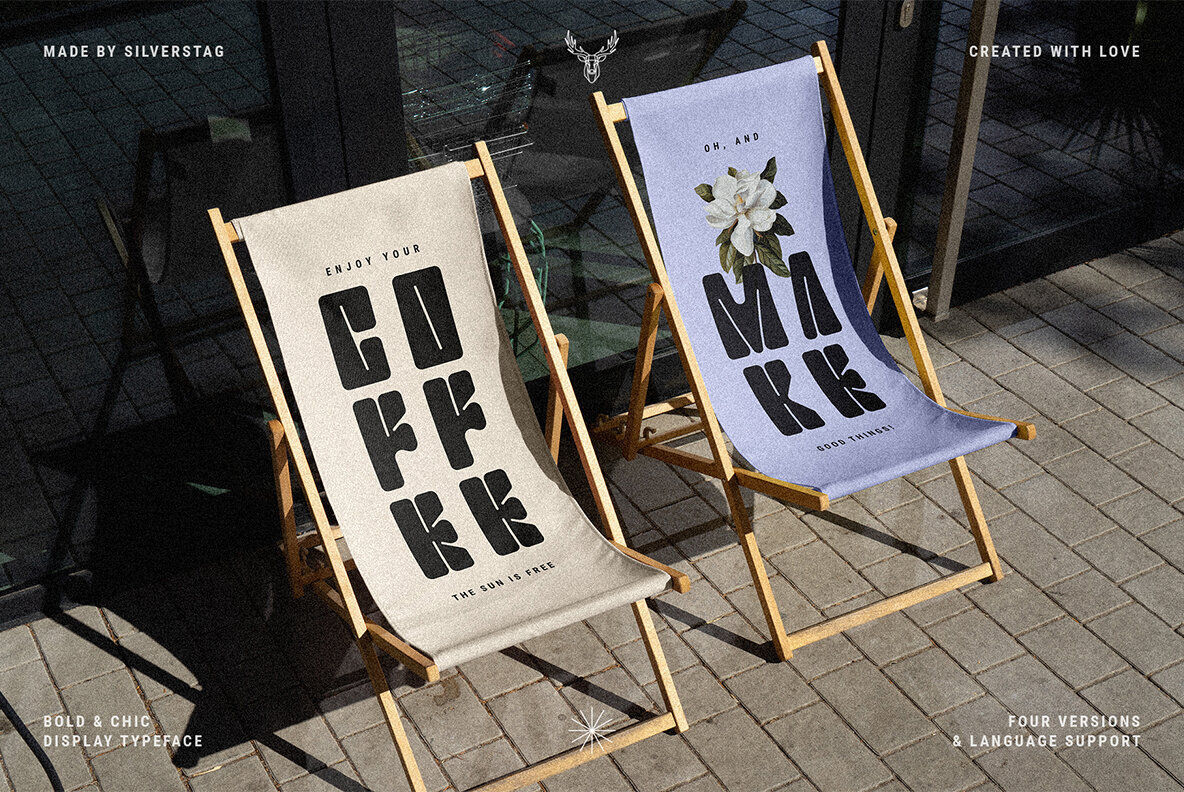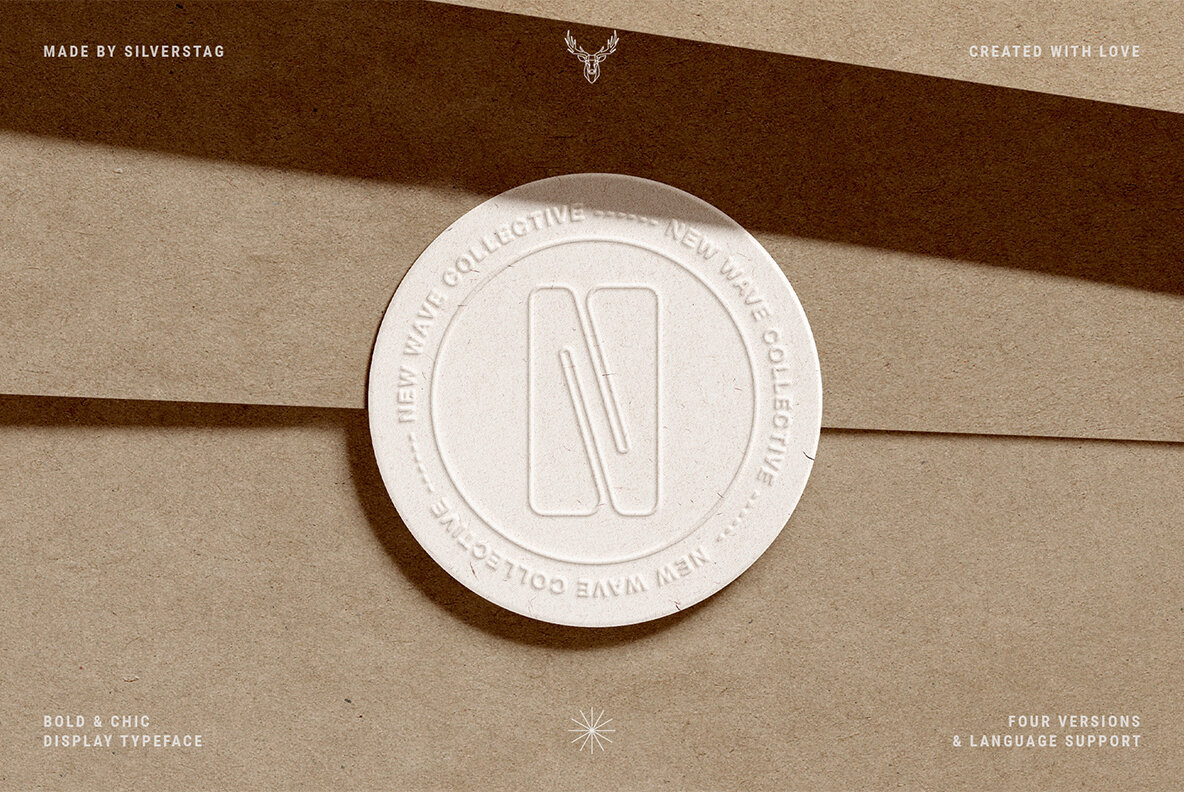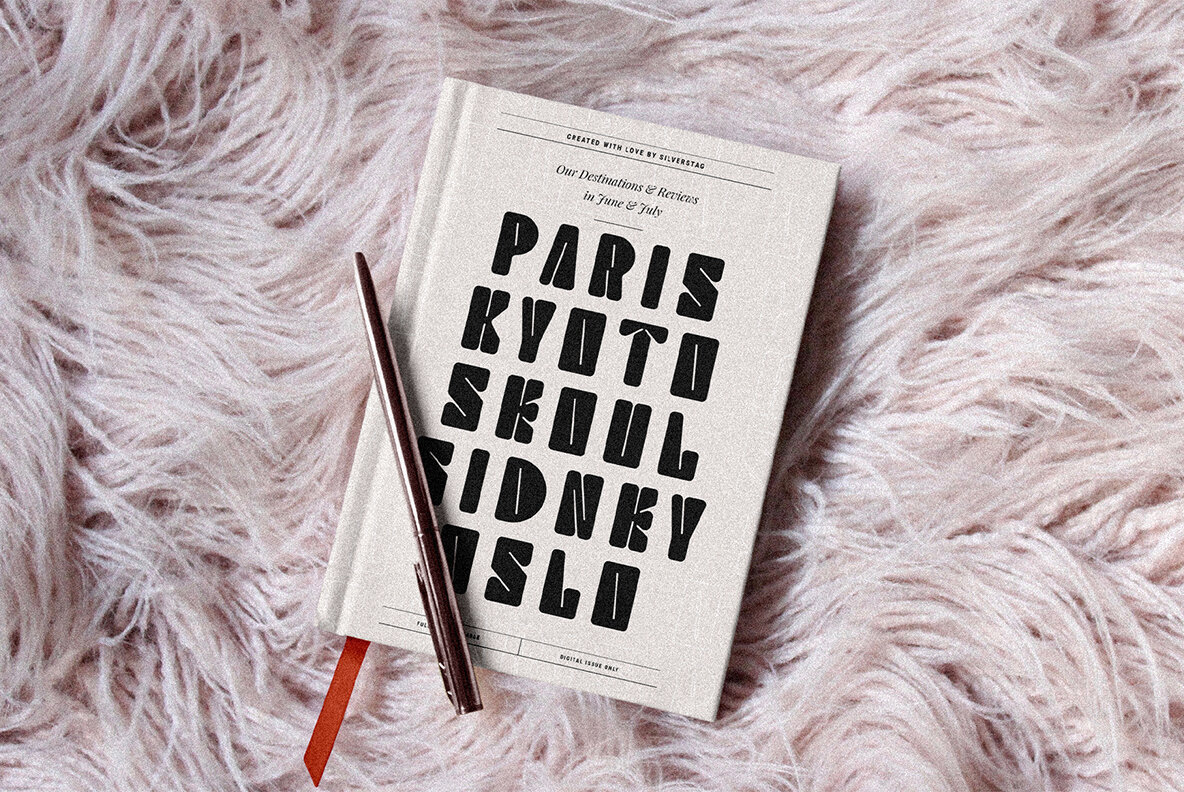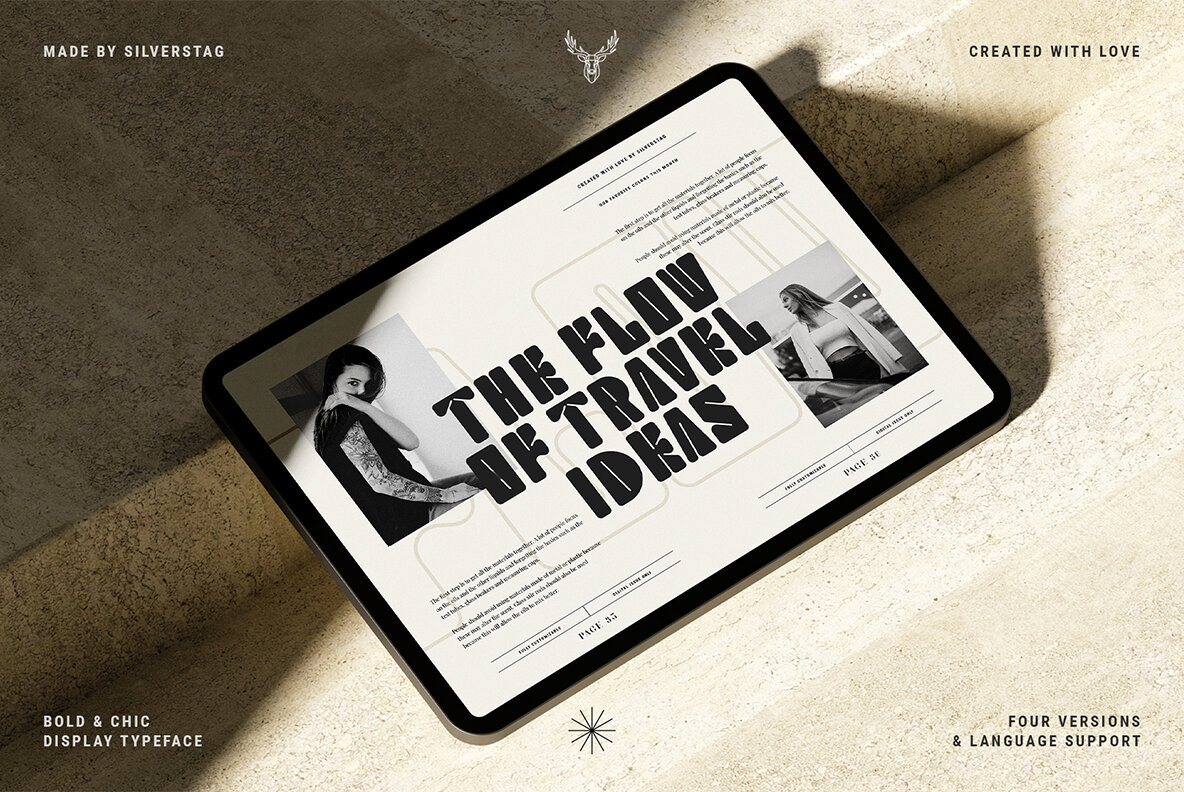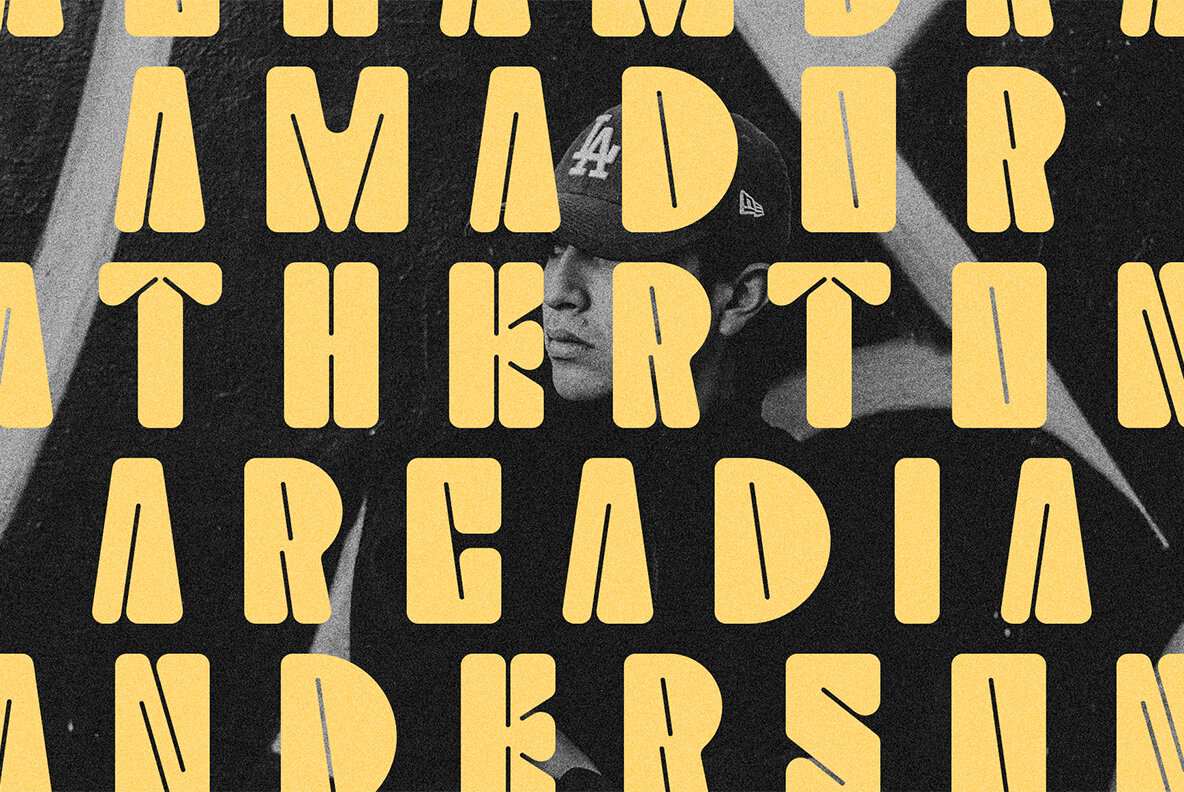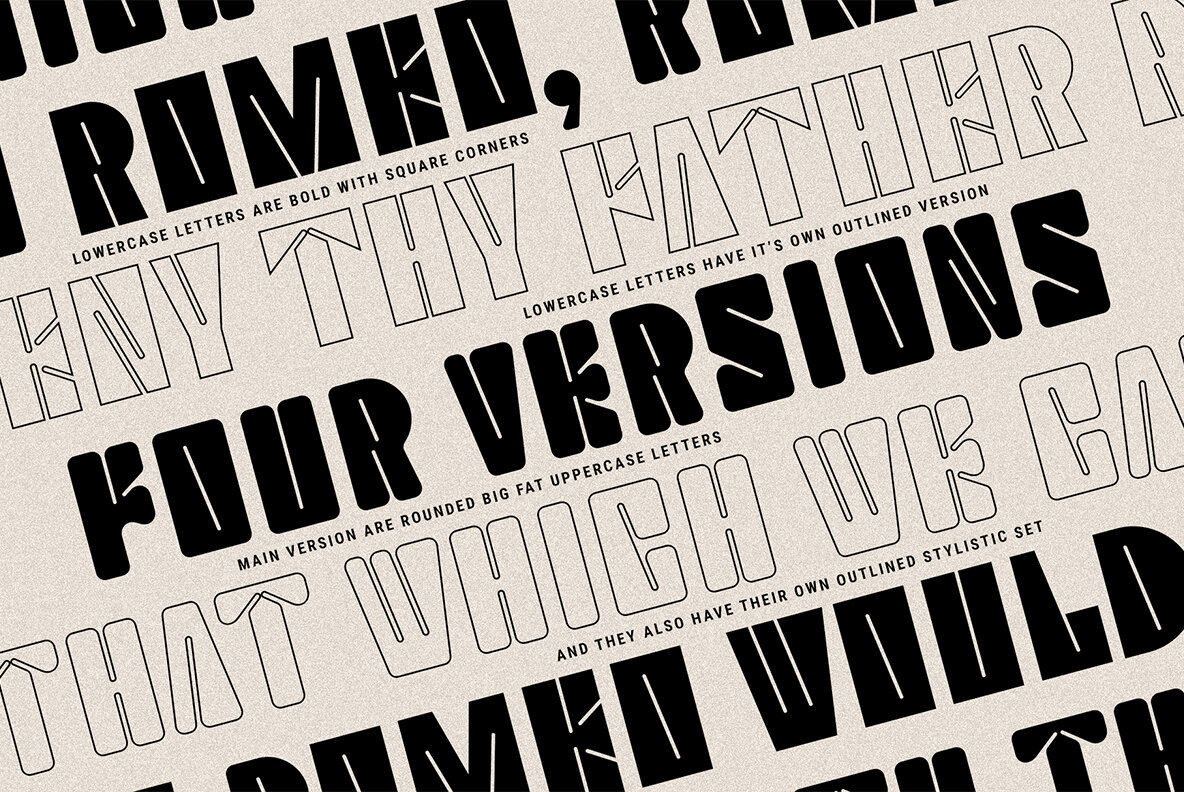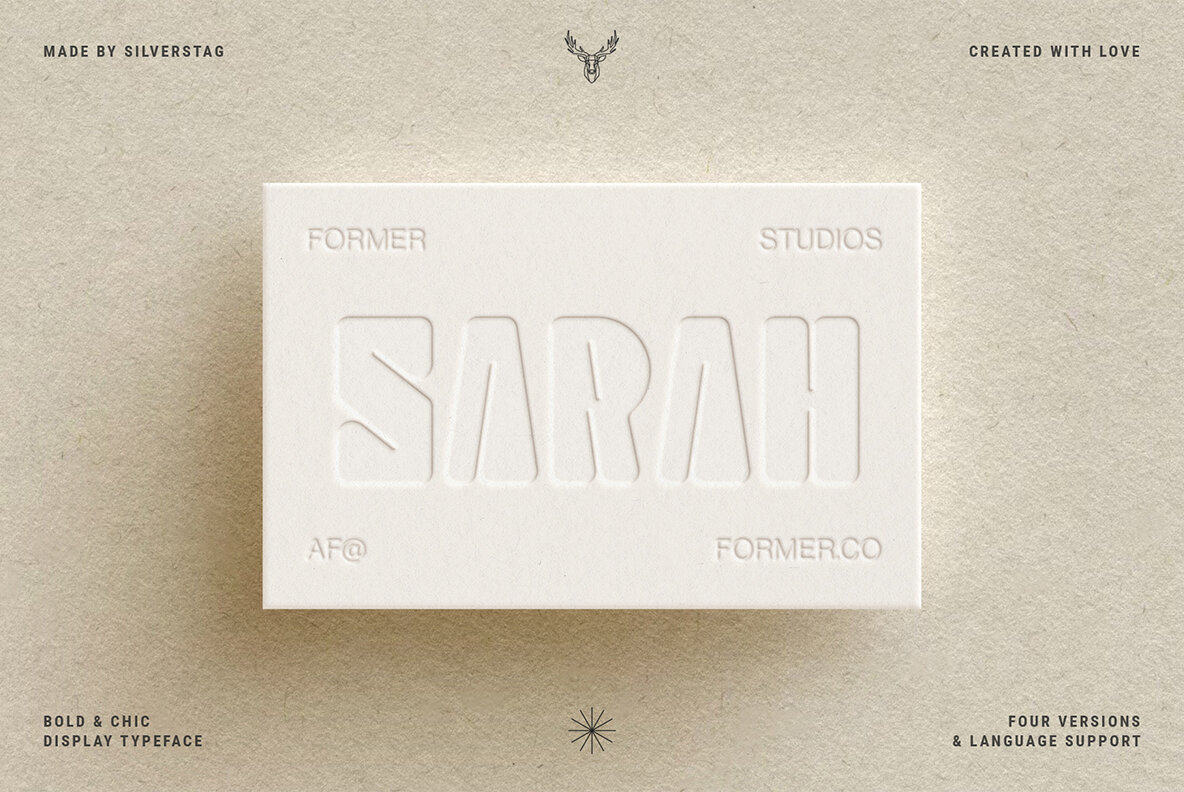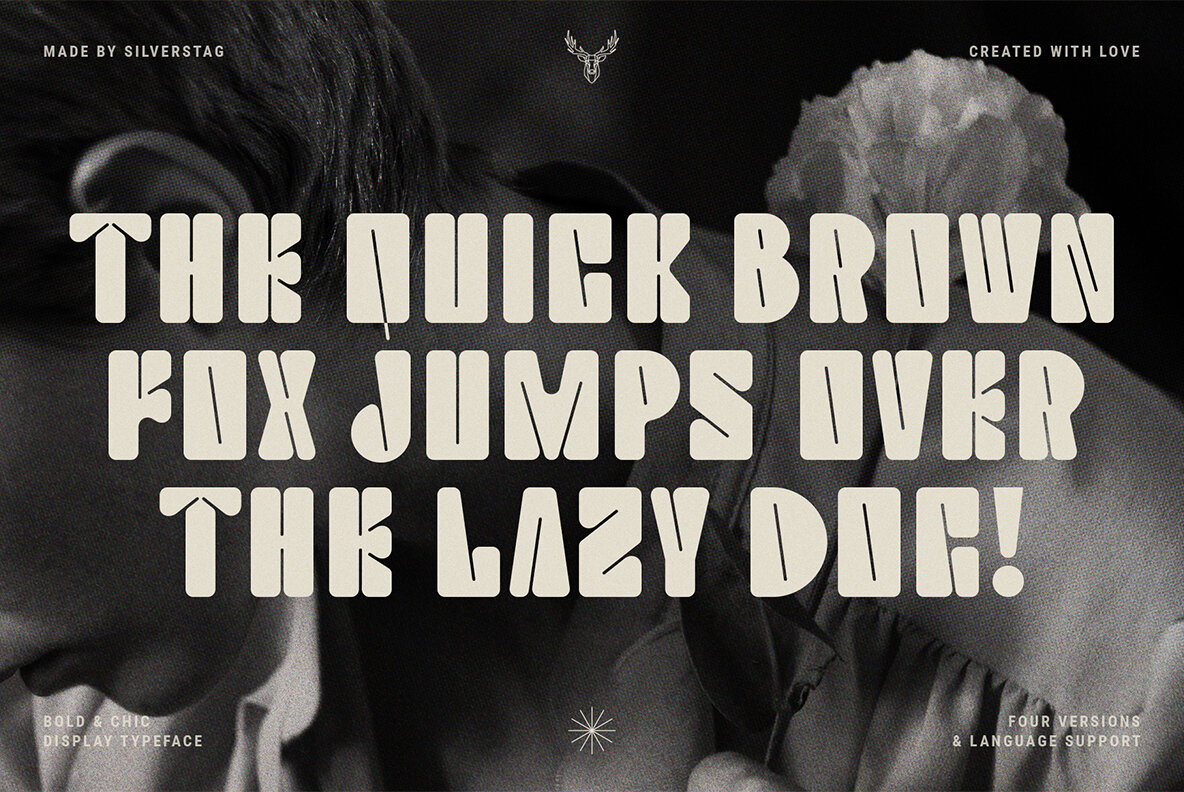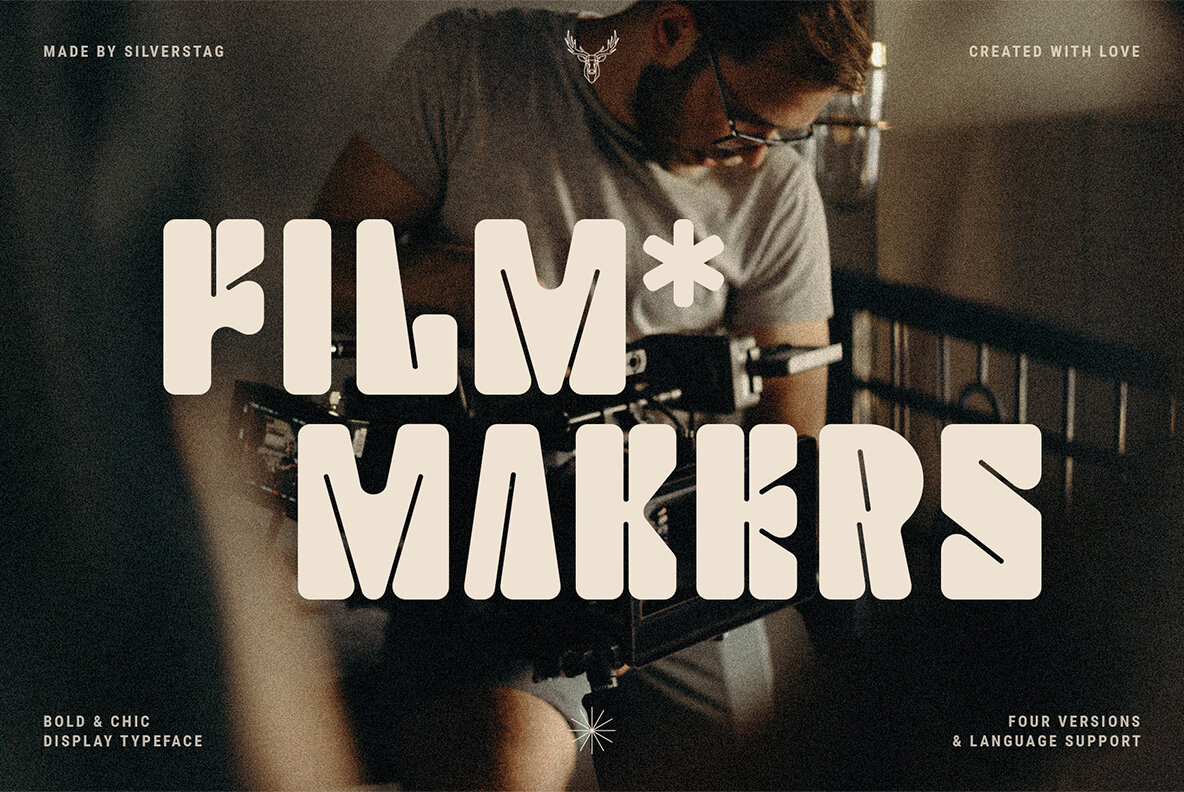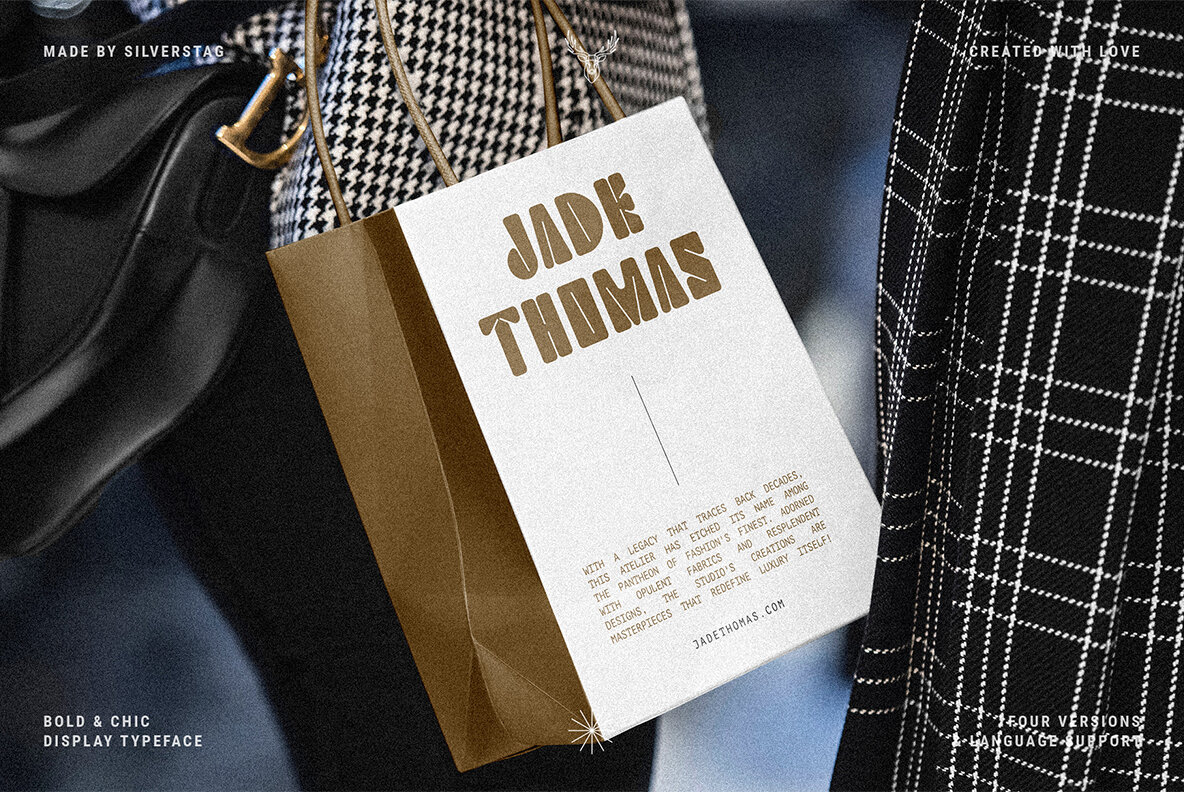
Bolt Display Font
Bolt Display Regular
Introducing Bolt Display – not just a font, but a confident individual that's here to make a statement. Bold, curvy, and irresistibly modern, Bolt Display brings a touch of personality to your projects with its unique style. Picture this: uppercase letters with rounded corners, inviting you in with a warm, approachable embrace. Or, if you're feeling adventurous, the outlined uppercase stylistic set that adds that contemporary edge to your work. On the flip side, lowercase letters with sharp corners confidently declare their presence, while the lowercase outlined stylistic set strikes the perfect balance between structure and artistic freedom. With its diverse character options and over 430 carefully crafted glyphs, Bolt Display becomes more than just letters – it becomes your voice in the design world. It's not just a font; it's a companion that stands by your side as you express your ideas, no matter the language or culture. From lively headlines to branding that sticks, Bolt Display lets you put your personal touch on everything you create. So go ahead, let Bolt Display be your creative partner, and watch your projects come to life with a touch of modern elegance and flair.